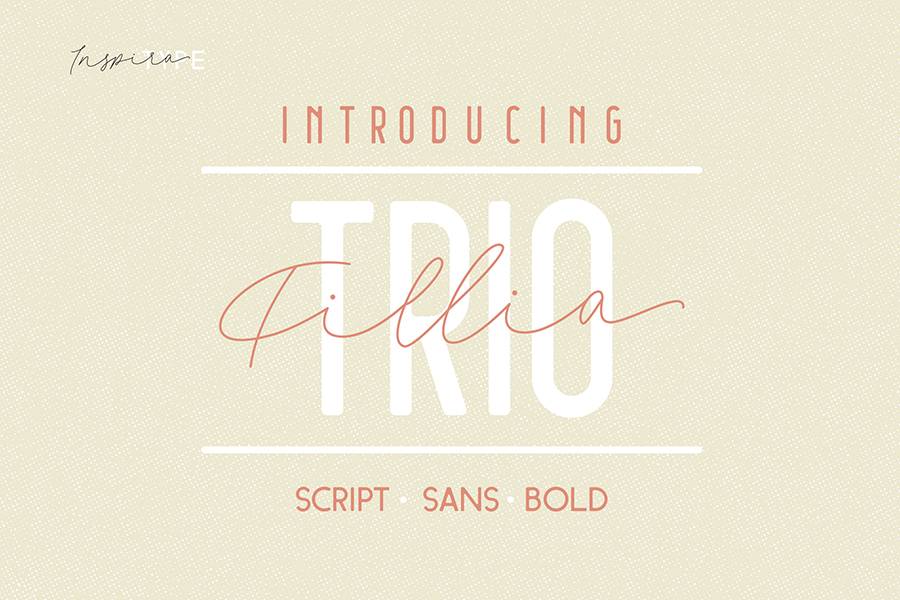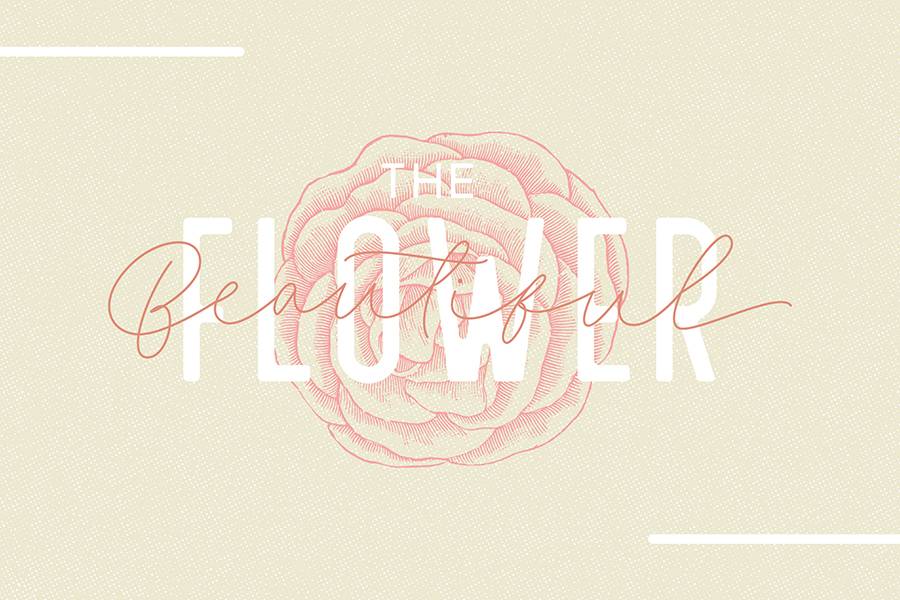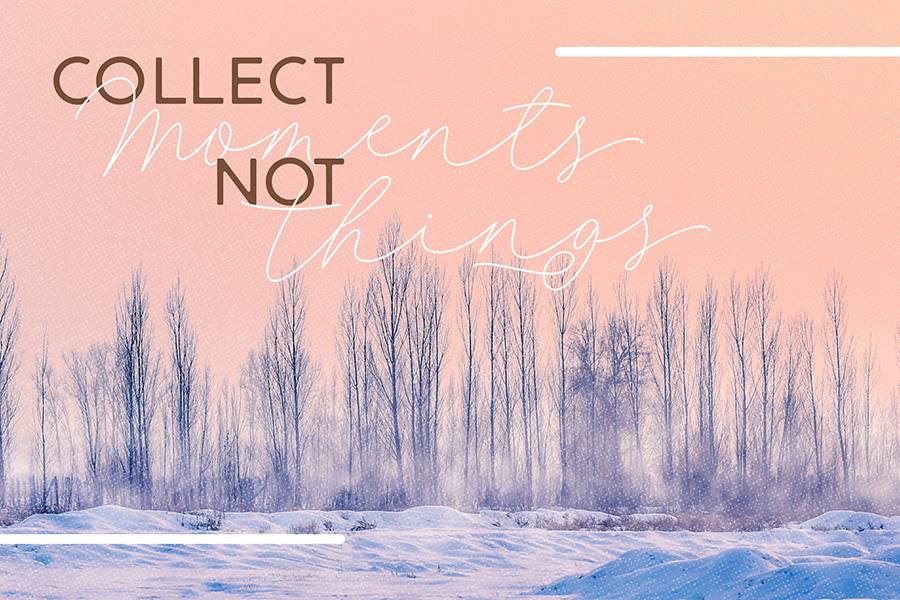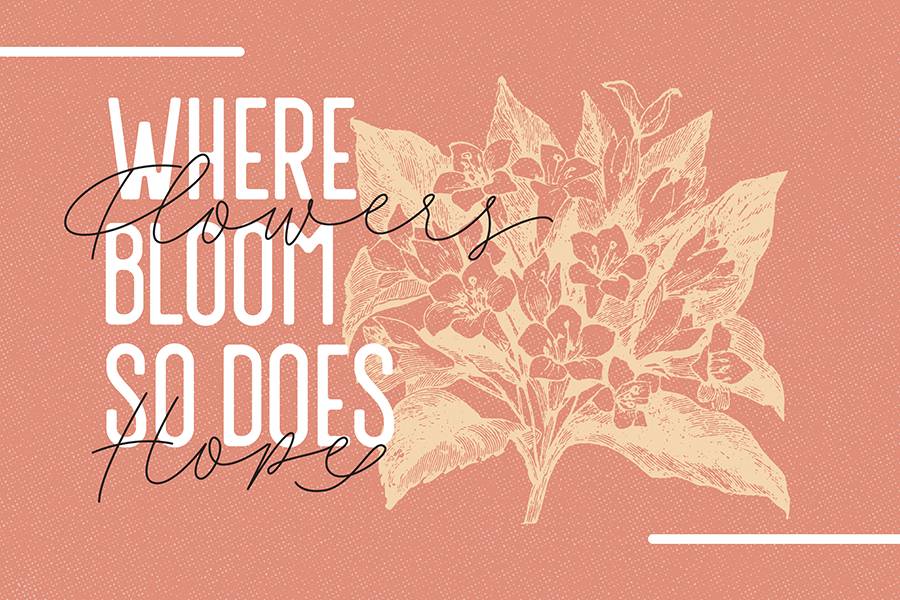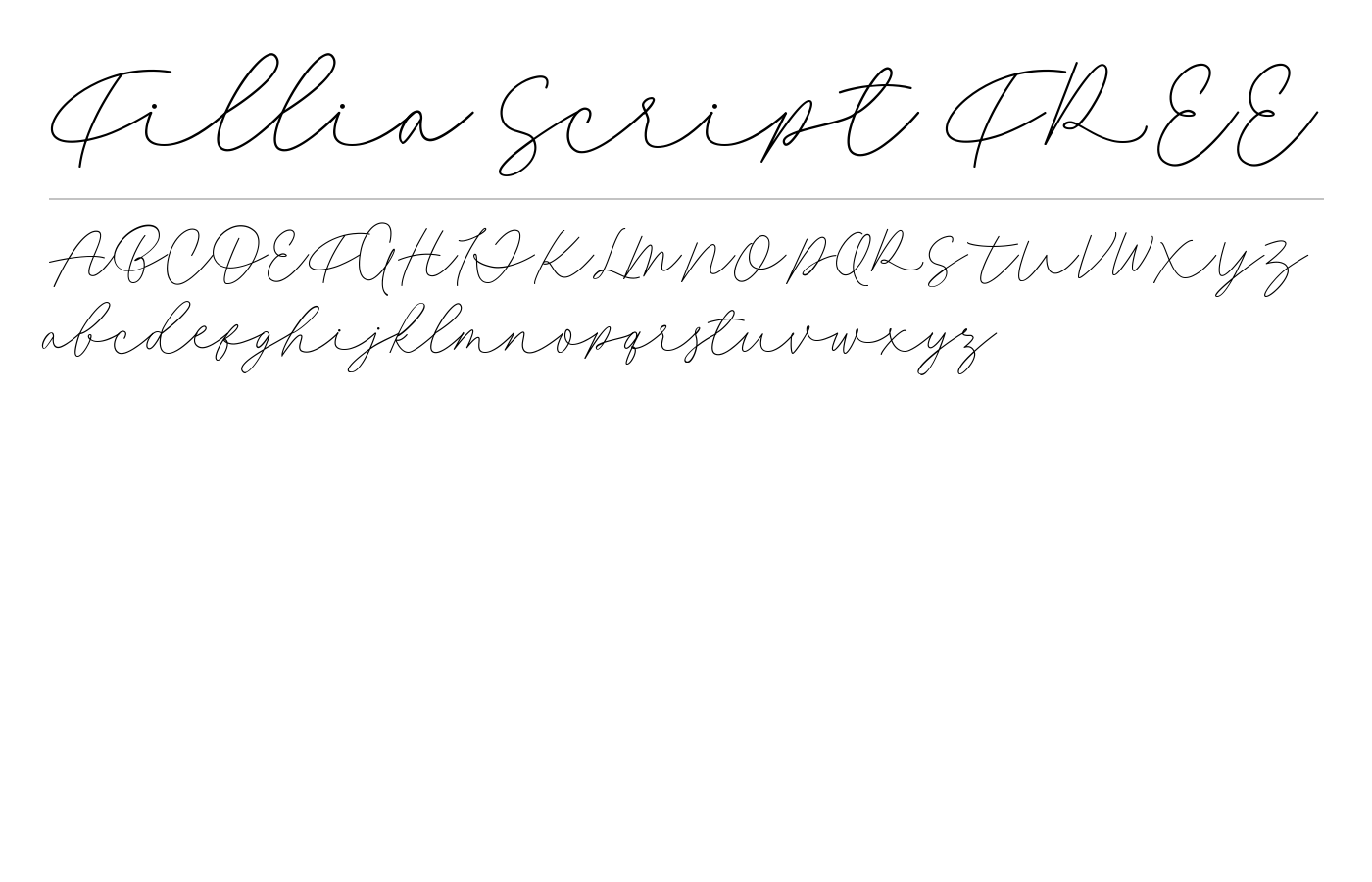
Fillia Script is an elegant and delicate handwritten font that features thin, flowing strokes with a light and airy feel. Its smooth, connected letterforms convey a personal, sophisticated touch, making it ideal for invitations, branding, and feminine design projects where a refined yet casual style is desired. This font works beautifully in logos, headers, and decorative text, lending charm and grace without sacrificing readability.
Fillia Script Font Demo
About Fillia Script Font Demo